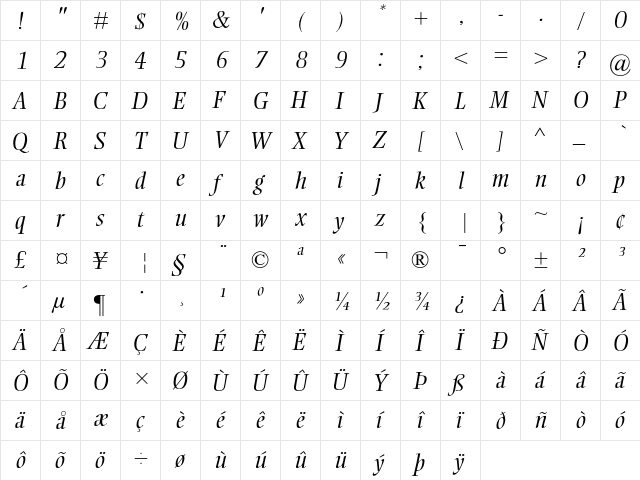
Ellington Light Italic
Design Context for Ellington Typeface
Ellington is a composed and adaptable typeface that performs quietly and consistently across a wide range of design contexts. Its italic angle brings a sense of urgency and motion to the letterforms. Its slender proportions lend an understated elegance to any composition.
Pro Tip: Use Ellington for emphasis, pull quotes, and subheadings where its slanted energy can add rhythm to the layout.